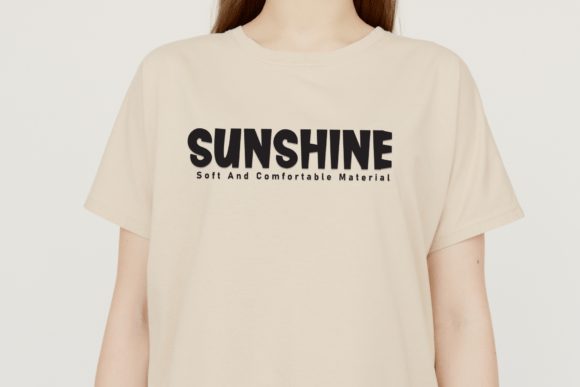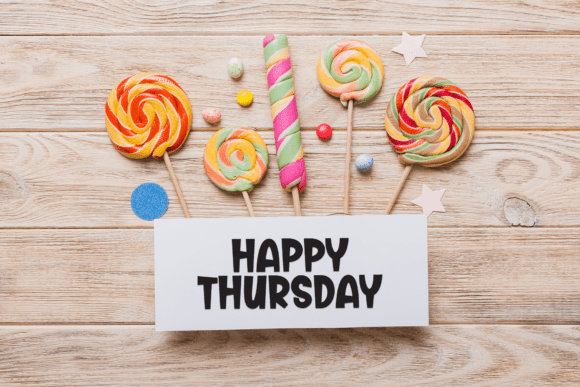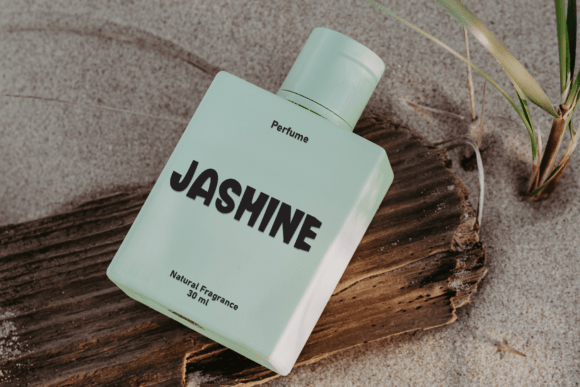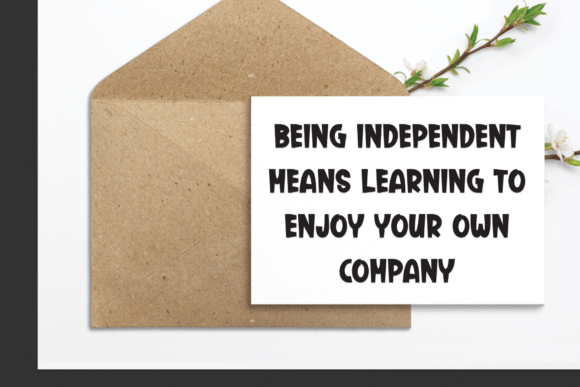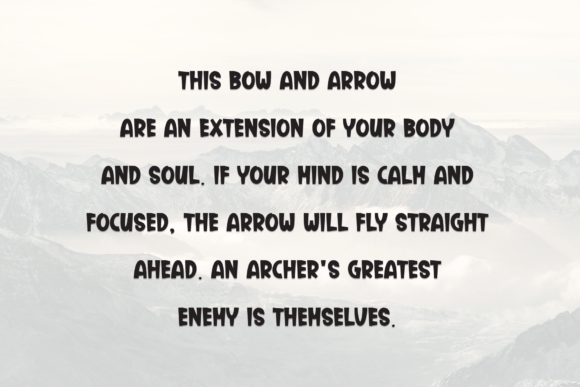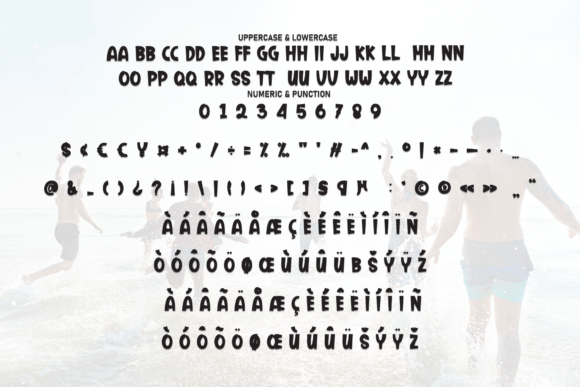
Introducing Happy Holiday Font: The Perfect Blend of Simplicity and Friendliness
Are you tired of using fonts that are too formal or too dull? Look no further than the Happy Holiday font, a casual and neat display font that combines simplicity with a friendly, approachable vibe. This beautiful font is designed to capture the essence of modern handwritten typography with a polished finish, making it perfect for a wide range of design projects.
Clean Lines, Balanced Letterforms, and Subtle Rounded Edges
One of the standout features of the Happy Holiday font is its clean lines, balanced letterforms, and subtle rounded edges. These design elements work together to create a font that is both visually appealing and highly legible. The clean lines and balanced letterforms ensure that the font is easy to read, even at smaller sizes, while the subtle rounded edges add a touch of warmth and friendliness.
The Happy Holiday font is perfect for designers and crafters who want to add a personal touch to their work. Whether you’re creating a brand identity, designing a headline, or crafting a piece of packaging, this font is sure to impress. Its versatility and charm make it an excellent choice for a wide range of design projects, from digital content to print materials.
Ideal for Branding, Headlines, Packaging, and Digital Content
The Happy Holiday font is an excellent choice for branding projects, as it adds a warm and inviting touch to any design. Its friendly and approachable vibe makes it perfect for companies that want to establish a personal connection with their customers. Whether you’re creating a logo, a tagline, or a social media post, this font is sure to help you connect with your audience.
In addition to branding, the Happy Holiday font is also ideal for headlines, packaging, and digital content. Its clean lines and balanced letterforms make it easy to read, even at smaller sizes, while its subtle rounded edges add a touch of warmth and friendliness. Whether you’re designing a billboard, a product label, or a blog post, this font is sure to grab attention and engage your audience.
Adding a Warm and Inviting Touch to Your Design
One of the key benefits of the Happy Holiday font is its ability to add a warm and inviting touch to any design. Its friendly and approachable vibe makes it perfect for designers and crafters who want to create a personal connection with their audience. Whether you’re designing a brand identity, a headline, or a piece of packaging, this font is sure to help you establish a emotional connection with your audience.
The Happy Holiday font is also an excellent choice for designers who want to create a cohesive brand identity. Its versatility and charm make it an excellent choice for a wide range of design projects, from digital content to print materials. Whether you’re designing a logo, a website, or a brochure, this font is sure to help you create a consistent and recognizable brand identity.
Crisp Structure and Versatile Style
The Happy Holiday font features a crisp structure and versatile style that makes it perfect for a wide range of design projects. Its clean lines and balanced letterforms ensure that the font is easy to read, even at smaller sizes, while its subtle rounded edges add a touch of warmth and friendliness.
The versatility of the Happy Holiday font is one of its key benefits. Whether you’re designing a brand identity, a headline, or a piece of packaging, this font is sure to deliver clarity and charm in equal measure. Its crisp structure and versatile style make it an excellent choice for designers and crafters who want to create a wide range of design projects, from digital content to print materials.
In conclusion, the Happy Holiday font is a beautiful and versatile font that is perfect for designers and crafters who want to add a personal touch to their work. Its clean lines, balanced letterforms, and subtle rounded edges make it a visually appealing and highly legible font that is perfect for a wide range of design projects.
Whether you’re designing a brand identity, a headline, or a piece of packaging, the Happy Holiday font is sure to impress. Its friendly and approachable vibe makes it perfect for companies that want to establish a personal connection with their customers, while its crisp structure and versatile style make it an excellent choice for a wide range of design projects.